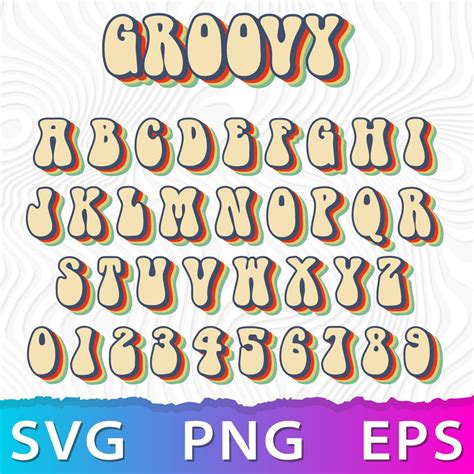
Psychedelic Fonts: A Trip Through Groovy Typography
Hey guys! Ever wondered how to give your designs that far-out, mind-bending vibe? Well, buckle up because we’re diving deep into the world of psychedelic fonts! These aren’t your everyday letters; they’re swirling, twisting, and radiating pure, unadulterated trippy energy. Let’s explore what makes these fonts so special and how you can use them to create some seriously groovy designs.
What are Psychedelic Fonts?
Psychedelic fonts are typefaces inspired by the psychedelic art movement of the 1960s and 1970s. Think vibrant colors, swirling patterns, and a sense of altered reality – all captured in the form of letters! These fonts often feature: distorted shapes, wavy lines, bright and contrasting colors, and an overall sense of visual experimentation. The goal? To evoke the feelings and experiences associated with psychedelic states of consciousness. When we talk about psychedelic fonts , we’re really talking about fonts that break the mold. They defy conventional typography, embracing irregularity and visual excitement. They’re the rebels of the font world, perfect for projects that need a dose of trippy flair. The beauty of these fonts lies in their ability to transport viewers to another dimension, evoking feelings of nostalgia for the vibrant counterculture era. From music posters to album covers, psychedelic fonts have left an indelible mark on visual culture.
History and Influences
The history of psychedelic fonts is deeply intertwined with the counterculture movement of the 1960s. As mind-altering substances like LSD gained popularity, artists and designers began experimenting with visual representations of these experiences. This led to the creation of posters, album covers, and other visual materials that aimed to capture the essence of psychedelic states. The influences behind psychedelic fonts are vast and varied, drawing from art nouveau, op art, and surrealism. Art nouveau’s flowing lines and organic shapes can be seen in many psychedelic fonts, while op art’s emphasis on optical illusions and visual vibrations adds to the trippy effect. Surrealism’s exploration of the subconscious mind and dreamlike imagery also plays a significant role in shaping the aesthetics of these fonts. Artists like Wes Wilson, Victor Moscoso, and Peter Max were pioneers in this field, creating iconic designs that defined the look and feel of the era. Their innovative use of typography, combined with bold colors and hallucinatory imagery, set the stage for the development of psychedelic fonts as a distinct art form. Today, designers continue to draw inspiration from these pioneers, pushing the boundaries of typography and creating new and exciting ways to express the psychedelic experience.
Key Characteristics
The defining characteristics of psychedelic fonts are what make them instantly recognizable and utterly captivating. One of the most prominent features is the use of distorted shapes. Letters might be stretched, compressed, or twisted into unconventional forms, creating a sense of visual instability. Wavy lines are another hallmark of psychedelic fonts , adding a fluid and dynamic quality to the typography. These lines can undulate and ripple, mimicking the visual distortions often associated with altered states of consciousness. Bright and contrasting colors are also essential. Psychedelic fonts often employ vibrant hues that clash and complement each other, creating a visually stimulating effect. Think neon greens, electric blues, and psychedelic purples – all combined to create a sensory overload. An overall sense of visual experimentation is crucial. Psychedelic fonts are all about pushing the boundaries of typography and exploring new and unconventional ways to represent letters. This can involve incorporating unusual textures, patterns, and effects, resulting in a truly unique and trippy visual experience. When used effectively, these characteristics can transform ordinary text into a mesmerizing work of art.
How to Use Psychedelic Fonts
Okay, so you’re itching to use these trippy fonts , right? Here’s the lowdown on how to make the most of them. Psychedelic fonts aren’t exactly the go-to choice for every design project. I mean, you wouldn’t want to use them for a corporate report (unless you’re trying to make a very bold statement!). But for projects that need a dose of counterculture cool, they’re perfect. Album covers, concert posters, festival flyers, and anything related to music or art are prime candidates. The key is to use them sparingly. A little psychedelic font can go a long way, so don’t overdo it. Think of it as a spice – a dash can add amazing flavor, but too much can ruin the whole dish. Pair them with clean, simple backgrounds to really make them pop. A busy background can clash with the font and make your design look cluttered. Consider your color palette carefully. Psychedelic fonts often look best with bright, contrasting colors, but be sure to choose colors that complement each other. Experiment with different effects, like shadows, glows, and gradients, to add depth and dimension to your typography. And most importantly, have fun! Psychedelic fonts are all about expressing creativity and pushing boundaries, so don’t be afraid to experiment and try new things.
Best Use Cases
To really nail the use of psychedelic fonts , understanding the best use cases is crucial. Music-related projects are a natural fit. Think album covers, concert posters, and band logos. These fonts can instantly convey the vibe of a particular genre or artist, especially those associated with psychedelic rock, funk, or electronic music. Event promotions, such as festival flyers and party invitations, are another excellent application. Psychedelic fonts can create a sense of excitement and anticipation, enticing people to attend your event. Art and design projects that aim to evoke a sense of creativity, experimentation, or nostalgia can also benefit from the use of these fonts. Whether you’re designing a poster, a website, or a piece of digital art, psychedelic fonts can add a unique and eye-catching element. Retro-themed designs that pay homage to the 1960s and 1970s are also ideal candidates. These fonts can help capture the essence of that era, transporting viewers back to a time of peace, love, and psychedelic exploration. It’s important to consider the overall tone and message of your project when deciding whether to use a psychedelic font . If your goal is to create something fun, playful, and visually stimulating, then these fonts can be a perfect choice.
Examples of Effective Design
Let’s look at some examples of effective design using psychedelic fonts . One classic example is the album cover for Sgt. Pepper’s Lonely Hearts Club Band by The Beatles. While not a font in itself, the hand-lettered title embodies the psychedelic aesthetic with its colorful, swirling letters. Another iconic example is the posters created by Wes Wilson for various concerts in the 1960s. Wilson’s use of distorted typography, vibrant colors, and intricate patterns helped define the visual language of the psychedelic era. More recently, designers have incorporated psychedelic fonts into modern projects, such as website designs, digital art, and branding materials. These designs often combine the retro aesthetic of psychedelic fonts with contemporary design principles, creating a unique and visually striking effect. One example is the website for a music festival, which uses a psychedelic font for its logo and headings. The font is paired with bright colors and animated graphics, creating a dynamic and engaging user experience. Another example is a poster for an art exhibition, which features a psychedelic font in a bold and eye-catching way. The font is used to draw attention to the title of the exhibition and to convey the overall theme of creativity and experimentation. These examples demonstrate the versatility of psychedelic fonts and their ability to enhance a wide range of design projects.
Where to Find Psychedelic Fonts
Alright, you’re sold on the trippy fonts ! Now, where do you find them? The good news is, the internet is bursting with options. The not-so-good news is, you’ll have to sift through a lot of duds to find the real gems. Sites like DaFont, FontSpace, and MyFonts are great starting points. Just search for “psychedelic,” “groovy,” or “retro” fonts, and you’ll be presented with a plethora of choices. Be sure to check the licensing agreements before you download anything. Some fonts are free for personal use but require a commercial license for business projects. Creative Market and Etsy are also worth exploring. These platforms often feature unique, handcrafted fonts that you won’t find anywhere else. Plus, you’ll be supporting independent designers, which is always a good thing. Don’t be afraid to get creative and experiment with different combinations of fonts. You can even create your own psychedelic fonts using font-editing software. There are tons of tutorials online to guide you through the process. So go forth and explore the world of psychedelic typography! With a little bit of research and a lot of creativity, you’ll be creating trippy designs in no time.
Online Resources
Numerous online resources offer a wide selection of psychedelic fonts . Font marketplaces like MyFonts, Creative Market, and Adobe Fonts are excellent places to start your search. These platforms offer a variety of high-quality fonts, both free and paid, with clear licensing information. Free font websites like DaFont, FontSpace, and Google Fonts also offer a selection of psychedelic fonts , although the quality and licensing terms may vary. It’s important to carefully review the licensing agreements before using any font in a commercial project. Online design communities like Dribbble and Behance can also be valuable resources for discovering new and unique psychedelic fonts . Designers often showcase their font designs on these platforms, providing inspiration and links to download or purchase the fonts. Font identification tools like WhatTheFont and Font Matcherator can help you identify a psychedelic font that you’ve seen in an image or design. Simply upload the image to the tool, and it will analyze the font and provide a list of potential matches. Online tutorials and courses can teach you how to create your own psychedelic fonts using font-editing software like FontLab Studio or Glyphs. These resources can be particularly helpful if you’re looking to create a custom font that perfectly matches your design vision. By exploring these online resources, you can find the perfect psychedelic font to enhance your design projects and create a trippy visual experience.
Tips for Choosing the Right Font
Choosing the right psychedelic font can make or break your design. Here are some tips to help you make the best choice. Consider the overall tone and message of your project. Is it playful and fun, or more serious and sophisticated? Choose a font that aligns with the intended mood and message. Think about the legibility of the font. While psychedelic fonts are known for their distorted shapes and unconventional designs, it’s important to ensure that the text is still readable. Avoid fonts that are too intricate or difficult to decipher, especially for body text. Pay attention to the font’s weight and style. A bold, heavy font can be great for headlines, while a lighter, more delicate font may be better suited for body text. Consider the font’s compatibility with other design elements. Choose a font that complements the colors, images, and other visual elements in your design. Don’t be afraid to experiment with different fonts and combinations. Try pairing a psychedelic font with a more traditional font to create a unique and balanced look. Get feedback from others. Show your design to friends, colleagues, or potential customers and ask for their opinions on the font choice. Their feedback can help you identify any potential issues or areas for improvement. By following these tips, you can choose the perfect psychedelic font to enhance your design projects and create a trippy and visually appealing experience.
So there you have it, folks! A deep dive into the wonderfully weird world of psychedelic fonts . They’re not for every project, but when you need to add a touch of retro cool or trippy vibes, they’re the perfect tool. Remember to use them wisely, experiment with different styles, and most importantly, have fun! Now go out there and create some mind-bending designs! Let these fonts be your guide as you explore the outer reaches of design and creativity, leaving a trail of psychedelic artistry in your wake. Whether you’re designing an album cover, a poster, or a website, these fonts can help you create a visually stunning and unforgettable experience.